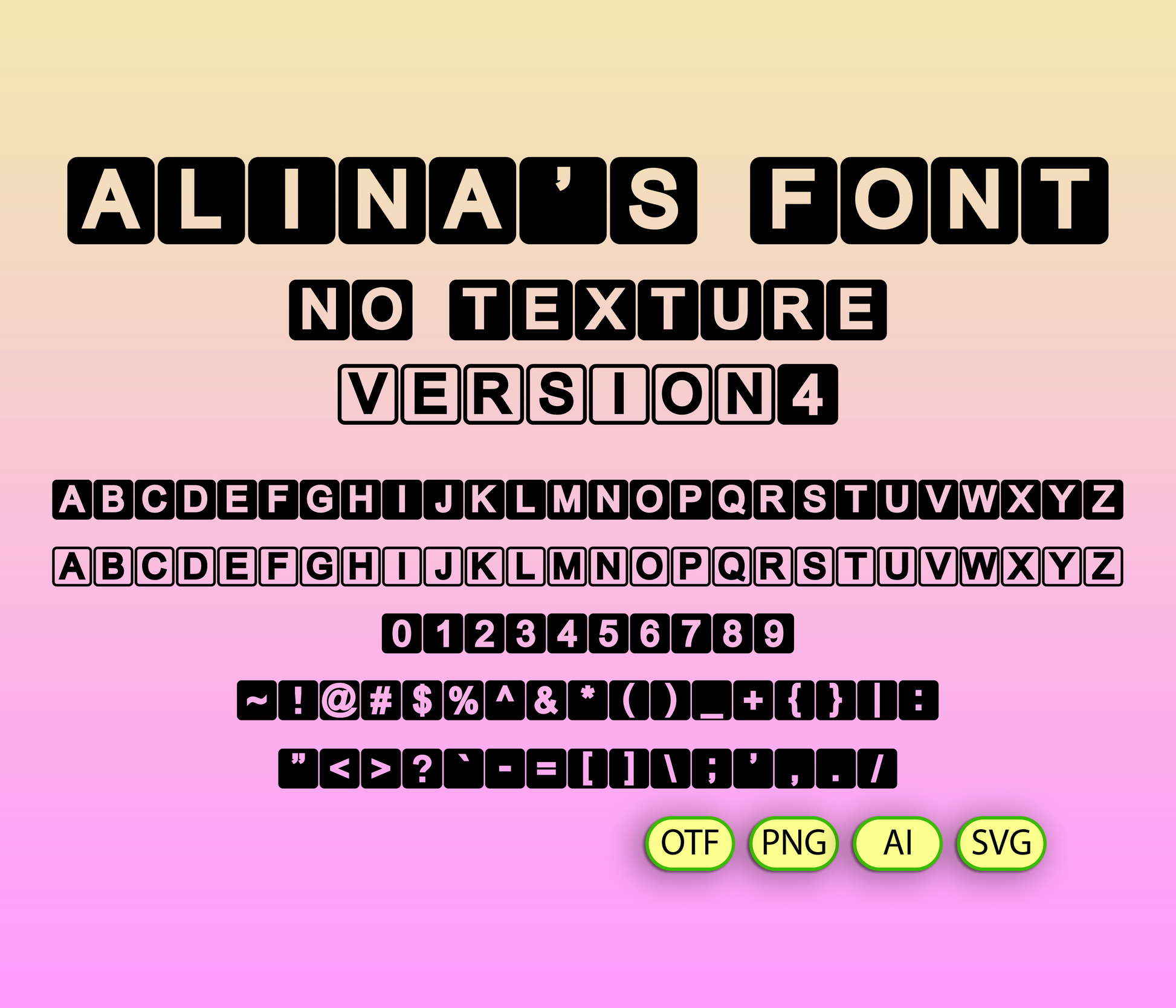
Numeric Adventure Crew Font Smooth Version
Step into the dynamic world of foundational mathematics with our Numeric Adventure Crew Font Smooth Version, capturing the essence of early computation skills and animated digit escapades. Perfect for elementary learning specialists, youth party planners, digital content developers, and artistic practitioners, this font brings the upbeat, formative spirit of calculated figure tales to your projects. Create attention-grabbing invitations, branded merchandise, or internet content with the developmental charm of enumeration journey narratives.
Bold Typography for Developmental Design & Childhood Projects
Our Numeric Adventure Crew Font Smooth Version features spirited, stylized letterforms with sleek, plain surfaces reflecting the world of expressive numerals and interactive study environments.
• Event Promotions: Create attention-grabbing invitations, signage, and advertising pieces for juvenile festivities, learning sessions, and family occasions that capture the spirit of formative entertainment
• Merchandise Design: Perfect for garments, canvas prints, adhesive graphics, and novelties that showcase the upbeat aesthetic of mathematical foundation themes
• Digital Media: Enhance website pages, video platforms, and social channels with spirited title treatments and imagery that express the excitement of computational exploration
• Creative Content: Add distinctive flair to pedagogical artwork, numeral renderings, and expressive projects inspired by calculation journey chronicles
• Personal Projects: Bring formative vitality to photo albums, self-made creations, and household embellishments inspired by the world of animated digit personalities
Our font pays tribute to the world of computational foundation stories and developmental animation, empowering your projects with its upbeat and formative spirit. Whether crafting learning materials, designing child-focused products, or adding a spirited touch to personal projects, this font communicates the lively essence of enumeration entertainment. Ready to inject foundational mathematics into your creations? This font is your key to attention-grabbing, impactful design.